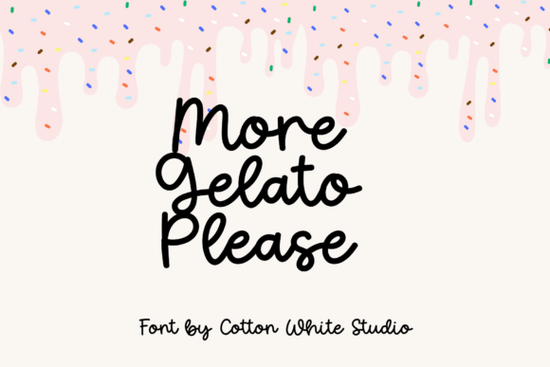
If you're looking for a friendly, hand-drawn script font that feels personal without being overly formal, More Gelato Please Font is a thoughtful choice. It’s not flashy or exaggerated just warm, legible, and quietly expressive. You’ll notice the subtle variation in stroke weight and the gentle rhythm of its letterforms, which together give it that authentic handwritten charm. Whether you’re designing a small-batch soap label, typing out a quote for Instagram, or laying out a wedding invitation suite, this font adds sincerity without sacrificing clarity.
When does More Gelato Please Font work best?
This font shines where personality matters more than precision. Think: boutique packaging, handmade greeting cards, planner stickers, or blog headers that invite readers in rather than impress them. It’s especially well-suited for projects with a soft, approachable, or nostalgic mood like a local café’s seasonal menu, a baby shower banner, or a small business’s “About Us” page. Because it’s designed with natural flow in mind, it pairs well with clean sans-serifs (like Montserrat or Inter) for contrast, or with other relaxed scripts if you want layered texture.
It’s not ideal for long paragraphs or tiny text like body copy in a printed booklet or fine print on a product tag. But for short phrases, headlines, and focal points? It delivers warmth and intentionality. That’s why many crafters and print-on-demand sellers use it for digital downloads, SVG files, and sublimation-ready designs especially when targeting audiences who value handmade aesthetics over corporate polish.
How does it compare to other popular script fonts?
Unlike tightly spaced, high-contrast calligraphy fonts such as Ardenta Calligraphy Font, More Gelato Please Font leans into relaxed spacing and softer edges. It’s less about dramatic flourishes and more about readability with character. If you’ve used Magic Writing Font, you’ll recognize a similar casual energy but More Gelato Please Font has a slightly rounder, more consistent baseline, making it easier to align and layer in design tools like Canva or Illustrator.
For designers building brand identities for lifestyle brands or creative solopreneurs, it fits neatly alongside fonts like Magic Writing Font and Ardenta Calligraphy Font each offering a different flavor of hand-crafted tone. You might use More Gelato Please Font for primary headlines, Ardenta for monogrammed logos, and Magic Writing for playful subheads all within one cohesive visual language.
Because it’s a single-weight script, pairing it thoughtfully matters. Try setting your main headline in More Gelato Please Font, then switch to a neutral sans-serif for supporting text. Avoid stacking it with other decorative scripts unless you’re intentionally going for a layered, collage-like effect and even then, keep spacing generous and hierarchy clear.
Who uses this font regularly?
We hear from small business owners who use it for custom order tags and thank-you cards, planners who drop it into weekly habit trackers and motivational quotes, and Etsy sellers who embed it into printable wall art bundles. One maker told us she uses it exclusively for her seasonal candle labels “It makes ‘Lavender + Vanilla’ feel like something you’d see scribbled on a chalkboard outside a neighborhood bakery.” That’s the vibe: grounded, human, unhurried.
It also works well in hybrid workflows. For example, if you’re cutting vinyl decals, the smooth curves and open counters reduce risk of breakage at small sizes. And because the letters aren’t overly tight or thin, it scales nicely from 12pt social media captions up to 120pt event signage always retaining its hand-drawn honesty.